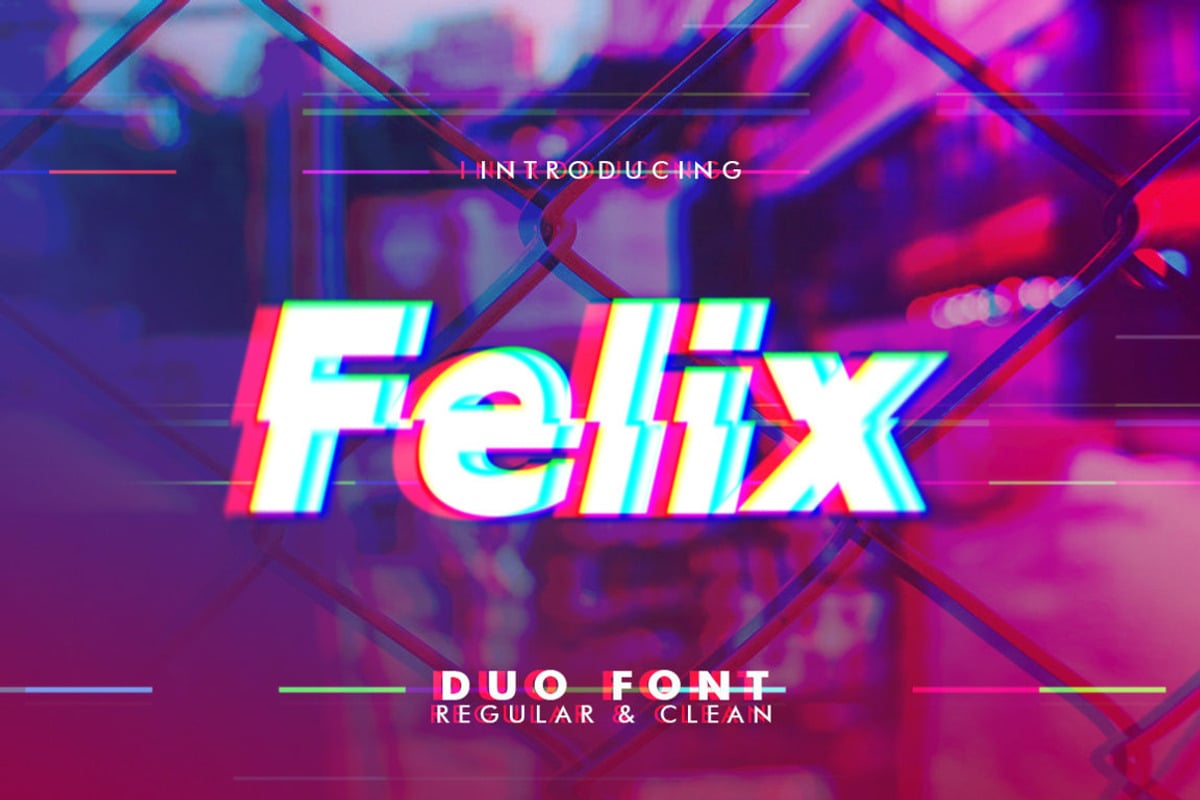
Felix Glitch Duo Font
Create striking digital designs with Felix, a bold sans serif duo featuring glitch effects and clean alternatives. Felix font combines bold and italic styling in two distinct versions to give you maximum creative flexibility. Felix Regular features horizontal fragmented pieces that create an authentic glitch effect, while Felix Clean offers the same powerful letterforms without distortion. This versatile sans serif typeface excels across multiple design applications: Posters and large-scale artw...